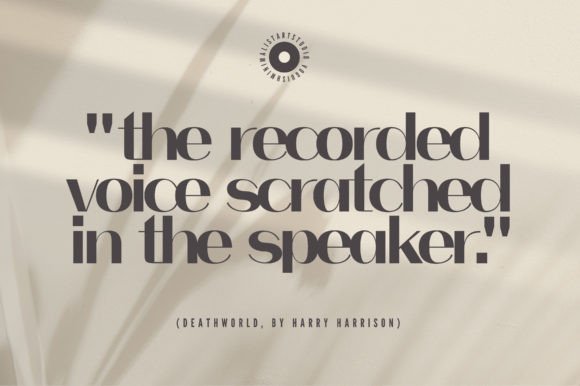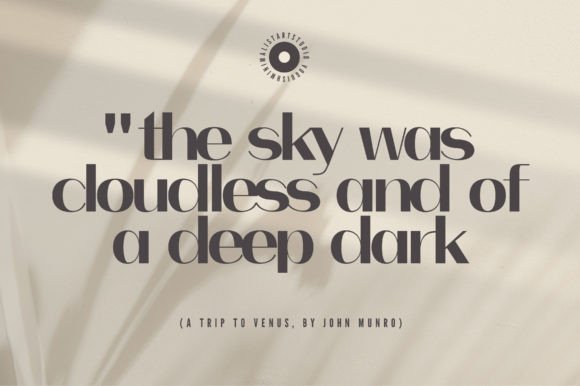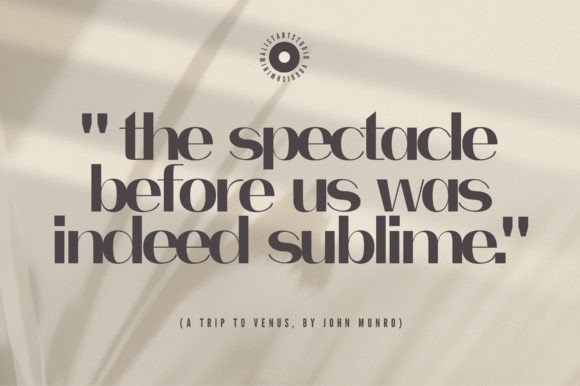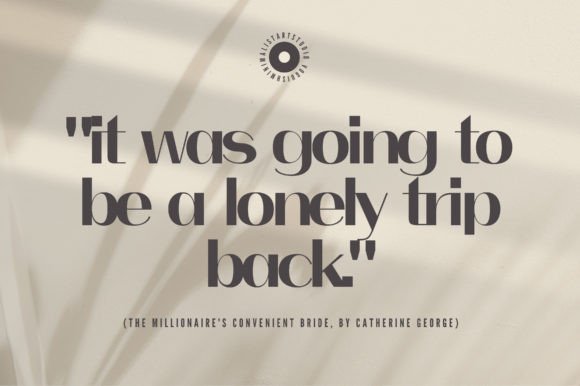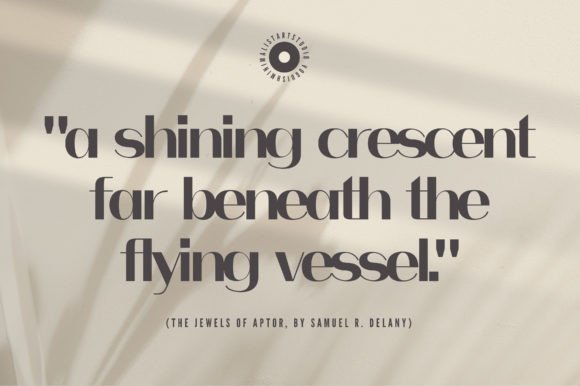
Introducing Beillia Font: The Epitome of Sophistication and Style
Beillia, a sans serif font that exudes class, chic, and elegance in every letter. This typeface is the epitome of sophistication and style, making it the perfect choice for any design project that requires a touch of luxury. Whether you’re looking to create eye-catching headlines, captivating logos, or stunning advertising materials, Beillia will bring your vision to life in a bold and beautiful way.
Crafted with Precision and Attention to Detail
Crafted with precision and attention to detail, Beillia boasts clean, crisp lines that are both simple and stylish. The font’s bold character pairs well with a variety of design elements, from modern graphics to vintage illustrations, and is ideal for projects ranging from fashion to finance. The elegant curves and refined details of Beillia make it a standout choice for wedding invitations, high-end fashion campaigns, and premium brand logos.
Designed for Readability and Versatility
Designed for readability and versatility, Beillia features multiple weights that are easy to use and pair together for a cohesive look. This font is perfect for designers and crafters who want to create stunning visual content that communicates their message with clarity and style. Whether you’re working on a luxury brand campaign or a creative project, Beillia’s flexibility and range make it an excellent choice.
Beillia is a versatile font that can be used for a wide range of design projects, including:
- Fashion and Beauty: Create stunning fashion campaigns, luxury brand logos, and eye-catching advertising materials that exude style and sophistication.
- Wedding and Events: Design beautiful wedding invitations, elegant party flyers, and sophisticated event branding that reflects your clients’ refined taste.
- Finance and Business: Use Beillia to create professional and elegant financial reports, business cards, and corporate branding that communicates stability and trust.
- Advertising and Marketing: Craft captivating ad headlines, stunning billboards, and effective marketing materials that grab attention and drive results.
Why Choose Beillia Font?
There are many reasons why Beillia font stands out from the rest:
- Unique and Elegant Design: Beillia’s clean lines, elegant curves, and refined details make it a standout choice for designers and crafters.
- Highly Versatile: With multiple weights and a wide range of design applications, Beillia is an excellent choice for any project that requires a touch of luxury.
- Easy to Read and Pair: Beillia’s clear and concise lettering makes it easy to read and pair with other design elements, ensuring a cohesive and stylish look.
- Perfect for Luxury Brands: Beillia’s sophisticated and elegant design makes it an ideal choice for luxury brands, high-end fashion campaigns, and premium products.
Tips for Using Beillia Font Effectively
To get the most out of Beillia font, here are some tips to keep in mind:
- Pair with Contrasting Fonts: Combine Beillia with contrasting fonts to create visual interest and add depth to your design.
- Use Multiple Weights: Experiment with different weights to create a cohesive and stylish look that adds hierarchy and emphasis to your design.
- Pay Attention to Kerning: Make sure to adjust kerning to ensure that your text is clear, readable, and visually appealing.
- Experiment with Colors: Try out different colors and textures to add an extra layer of sophistication and style to your design.
Beillia font is a sophisticated and elegant sans serif font that exudes class, chic, and luxury in every letter. With its clean lines, elegant curves, and refined details, Beillia is the perfect choice for designers and crafters who want to create stunning visual content that communicates their message with style and sophistication. Whether you’re working on a luxury brand campaign, a creative project, or a design project that requires a touch of elegance, Beillia font is an excellent choice.